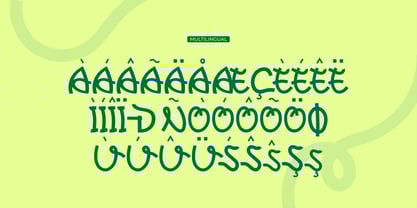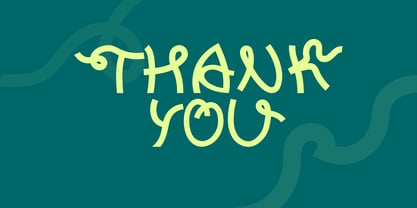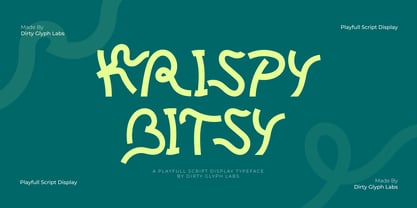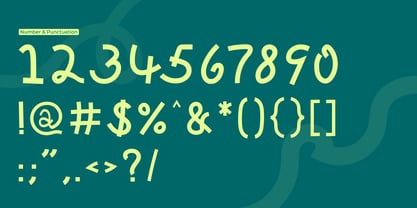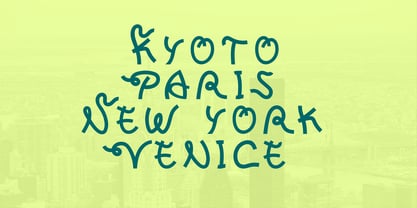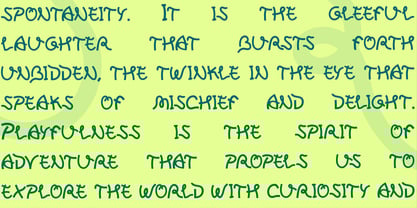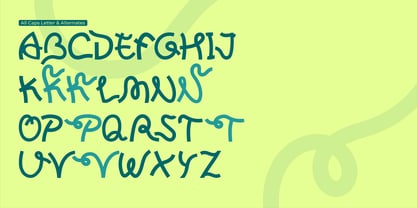
Krispy Bitsy
by DG Typeworks Studio
The Krispy Bitsy Font Family was designed by Asrul Yusuf and published by DG Typeworks Studio. Krispy Bitsy contains 2 styles and family package options. More about this family
Krispy Bitsy - A Playful Serif Display Font
Introducing Krispy Bitsy, a unique serif display font that seamlessly blends playful charm with classic elegance. Designed with creativity in mind, Krispy Bitsy is perfect for projects that require a touch of personality and sophistication. Whether you're working on branding, packaging, editorial design, or social media graphics, this font will add a distinct character to your creations.
Key Features:
• Stylized Serifs: Krispy Bitsy features stylishly exaggerated serifs that give it a distinctive and memorable look. The serifs are crafted to add a whimsical flair without compromising readability.
• Playful Character: This font exudes a playful and quirky vibe, making it ideal for projects that need to stand out with a touch of fun. Its lighthearted nature makes it perfect for children’s books, greeting cards, and creative branding.
• All-Caps with Alternate Styles: Krispy Bitsy is designed as an all-caps font with alternate styles for each letter, giving you the flexibility to mix and match to create dynamic and eye-catching text.
• Multilingual Support: Krispy Bitsy comes with comprehensive multilingual support, including a wide range of accented characters, making it accessible for various languages.
Designers: Asrul Yusuf
Foundry: DG Typeworks Studio